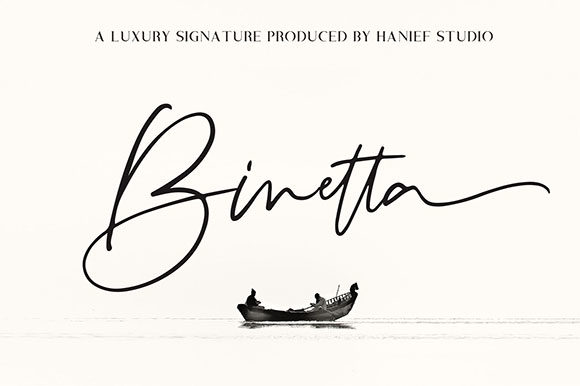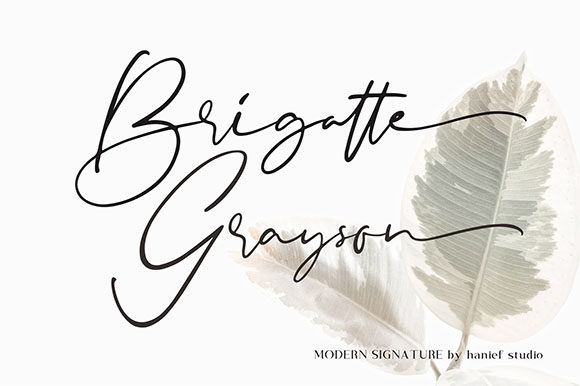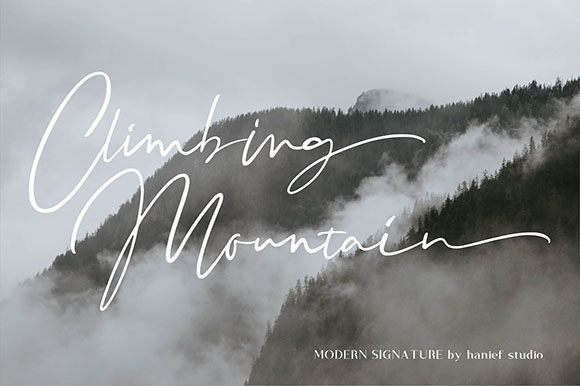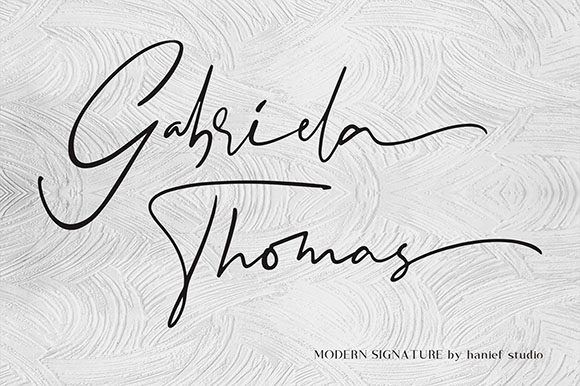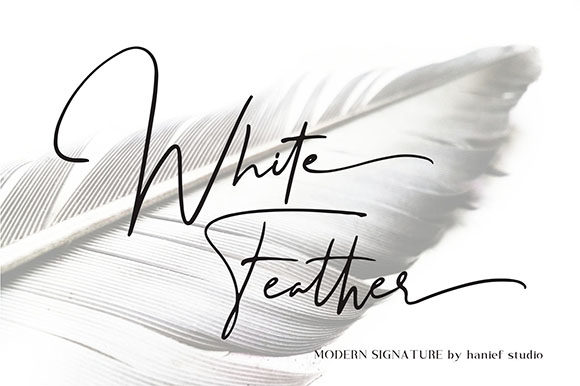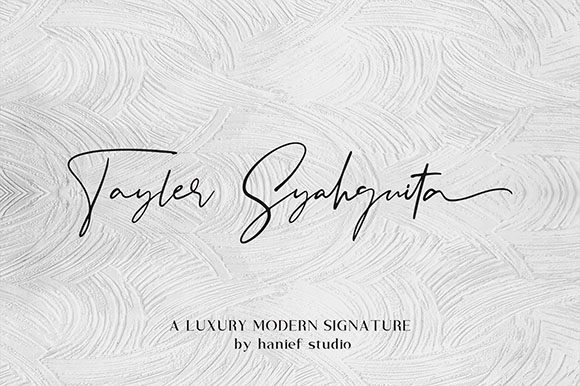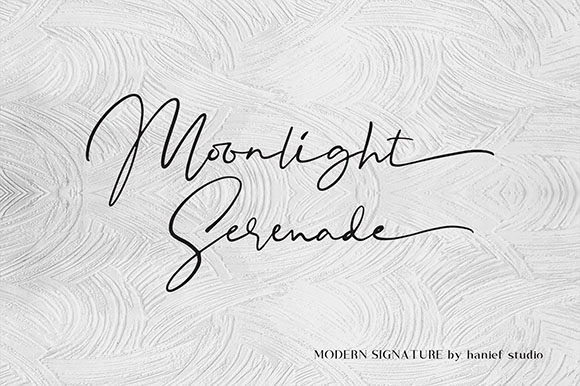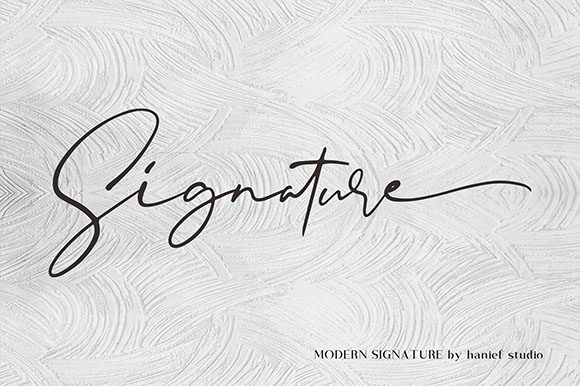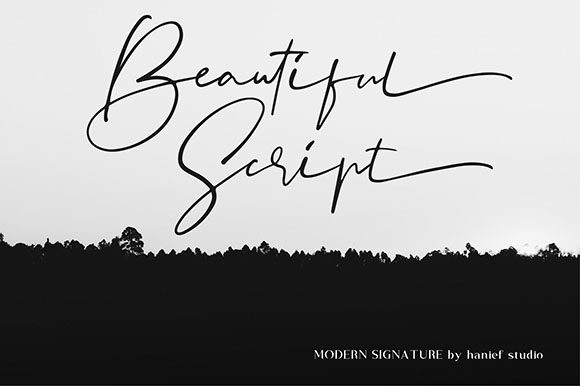
HomeScript FontsBinetta Signature Font Script Fonts Binetta Signature Font FacebookXPinterestWhatsApp Binetta Signature Font Poster 2 Binetta Signature Font Poster 3 Binetta Signature Font Poster 4 Binetta Signature Font Poster 5 Binetta Signature Font Poster 6 Binetta Signature Font Poster 7 Binetta Signature Font Poster 8 Binetta Signature Font Poster 9 About Binetta Signature Font Binetta is a modern signature font that radiates authenticity. DOWNLOAD NOW People also explored Hipnotic Font Knitting Font Bouton Signature Font Crazy Shake Font Elation Font Wake Snake Font Billkia Font Bentona Wilson Font Orchid Font 300 0 TagsBinetta Signature Font Previous articleTailorella FontNext articleCharlotte Font LEAVE A REPLY Cancel reply Comment: Please enter your comment! Name:* Please enter your name here Email:* You have entered an incorrect email address! Please enter your email address here Website: Save my name, email, and website in this browser for the next time I comment. Personal Use Free Adelfa Personal Use Free Read more about this font Marthissa Personal Use Free Read more about this font Bahjera Personal Use Free Read more about this font New Normal Personal Use Free Read more about this font BLOG How to Install and Use Fonts on Windows, macOS, and Web Projects How to Install and Use Fonts on Windows, macOS, and Web Projects Fonts are a crucial part of design and branding. Whether you’re designing a... The 10 Best Handwriting Fonts to Add Personality to Your Designs Best Fonts for YouTube Videos: Make Your Thumbnails Stand Out Exploring Font Trends